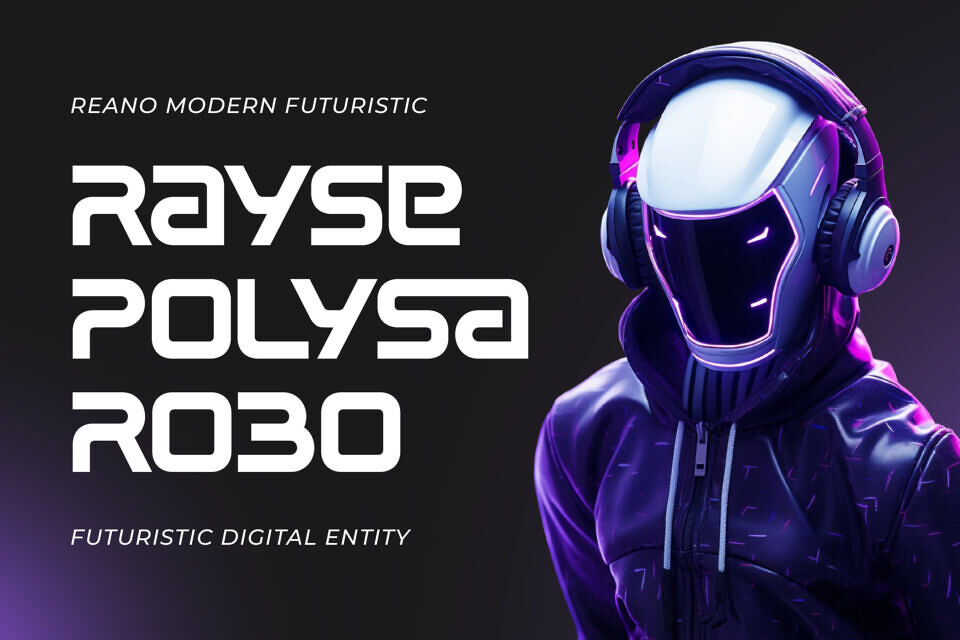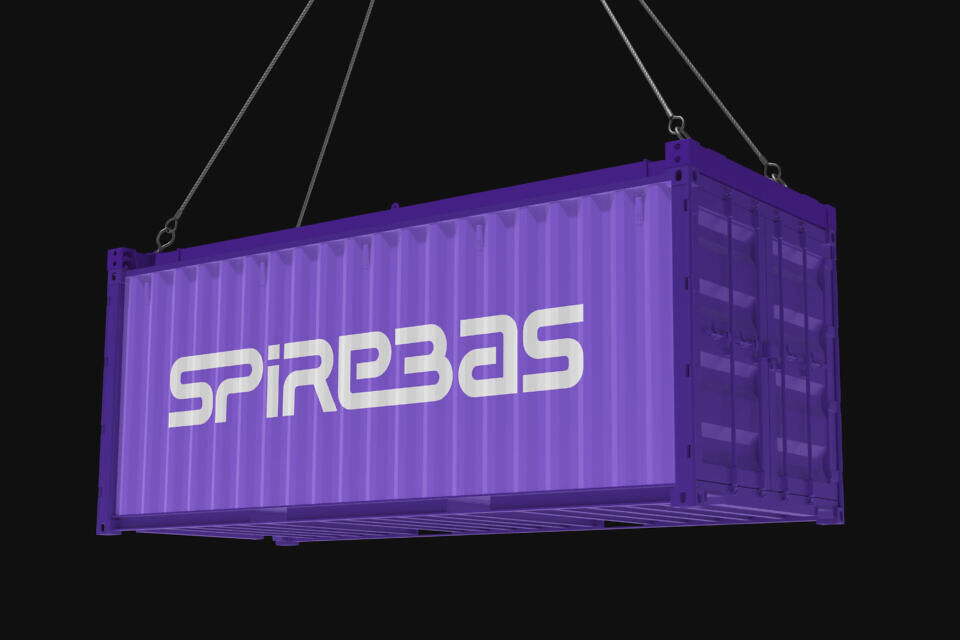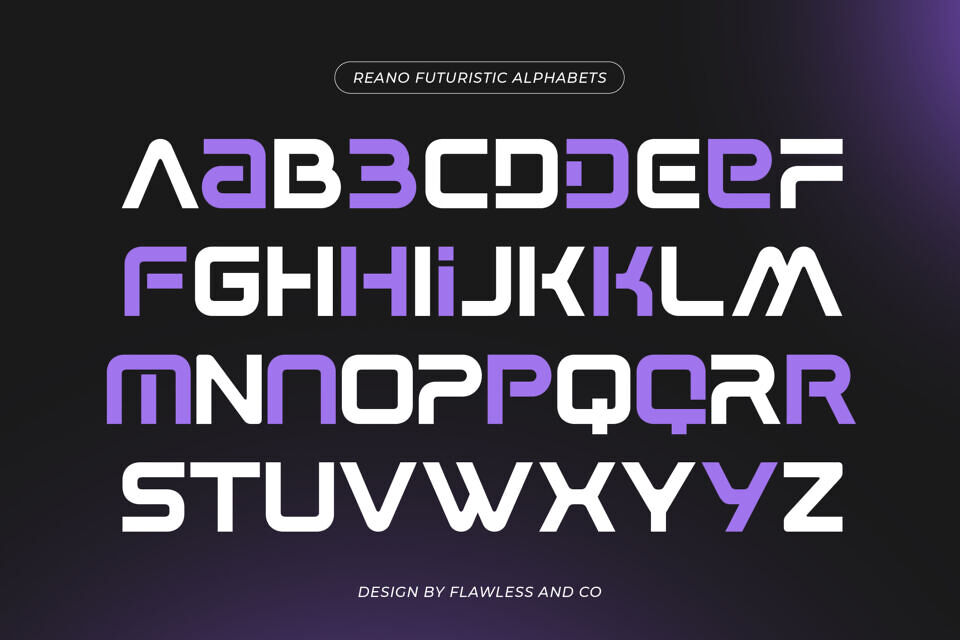
Reano is a striking modern futuristic display typeface crafted to deliver a clean, high-tech, and forward-looking visual style. Its precise geometric shapes and sharp edges create a strong digital aesthetic that instantly captures attention.
Designed to stand out, Reano works perfectly for bold headlines and modern branding that demand a sleek and innovative feel. Whether used in tech-related designs or creative visual projects, this font brings a refined futuristic vibe that feels both powerful and contemporary.